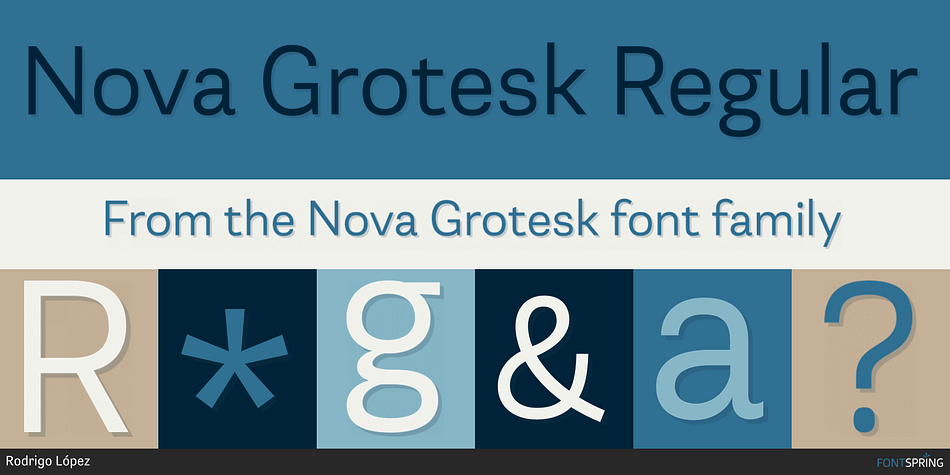
Designed by Sergio Leiva Whittle, Nova Grotesk is a sans serif font family. This typeface has forty-two styles and was published by Untype.
Nova Grotesk Regular
Nova Grotesk is a contemporary interpretation of the classic sans serif model born in the early 19th century that flirts with a humanist spirit, becoming a cozy Grotesque full of personality and functionality. Ranging from Thin to Black, offers 7 weights plus matching obliques on 3 widths for a total of 42 styles, a wide horizon of possibilities for a typeface that includes more than 800 glyphs per style, more than 20 Opentype features, smallcaps, oldstyle and tabular numbers, stylistic alternates, ornaments and plenty of other attributes for your typographic delight and delirium.
Nova Grotesk is an excellent option for use in corporate identity and branding, also works perfectly on signage and information design, its ubiquitous essence and affable scent make Nova Grotesk a typeface for every occasion.